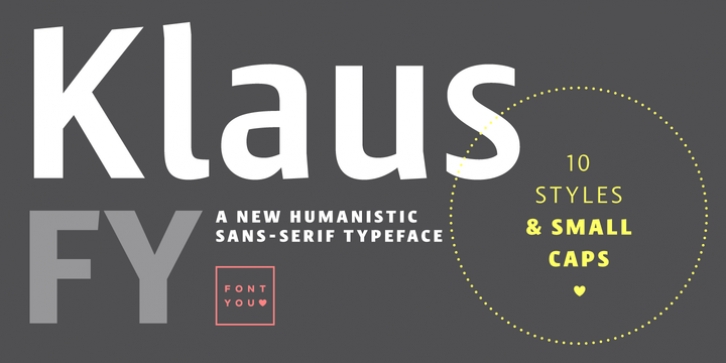
Klaus FY downloadDesigner: Gregori Vincens,
Publisher: Fontyou
Fairly condensed, slightly contrasts and particularly terminals, Klaus FY offers a good legibility in all text sizes. Its broken ductus reminds of blackletter shapes and gives this family a very singular and modern style.